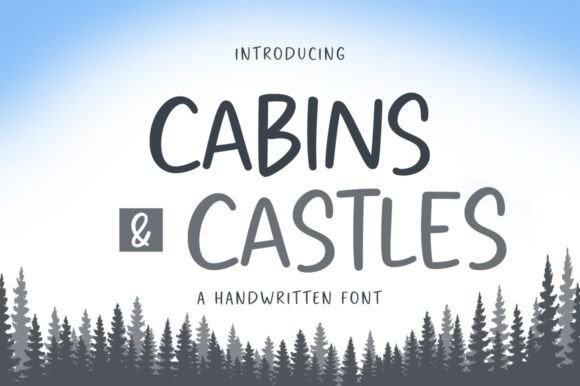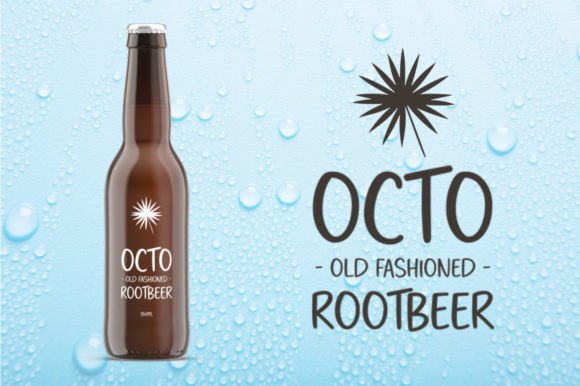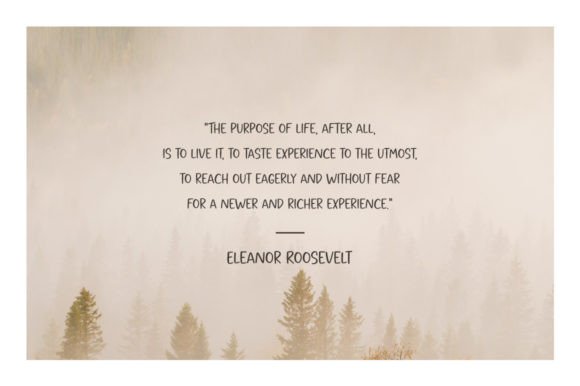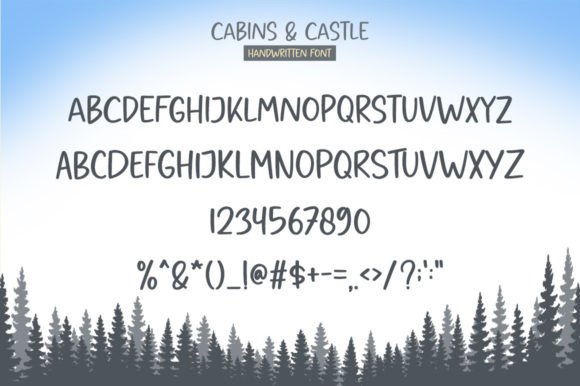
About Cabins and Castles Font
“Cabins And Castles” is a delicate and simple-lettered handwritten font that’s perfectly suited for creating chalkboard quotes and teaching materials. This font’s authentic look adds a personal and realistic feel to your designs, making it an excellent choice for educational and informative content.
One of the standout features of “Cabins And Castles” is its ability to convey a sense of authenticity and simplicity. The handwritten style of the font adds a personal touch to your text, making it ideal for projects that aim to create a down-to-earth and relatable atmosphere.
This font’s versatility allows it to be applied to various design contexts. “Cabins And Castles” can be used for educational materials, posters, signage, chalkboard designs, and more, making it a practical choice for projects that require clear and legible lettering.
Visualize using “Cabins And Castles” for educational posters and how it brings an authentic and relatable quality to your teaching materials. Picture incorporating this font into chalkboard quotes, adding a personal and handwritten touch to your inspirational messages. When you choose “Cabins And Castles” for your projects, you’re selecting a font that enhances their authenticity and approachability.
In conclusion, “Cabins And Castles” is more than just a font; it’s a design asset that brings a sense of authenticity and simplicity to your educational and informative projects. Its handwritten style and legible design make it a practical choice for various applications, particularly those focused on teaching and communication. Embrace “Cabins And Castles” as a font that adds a personal and realistic feel to your work, making it engaging and relatable to your audience.